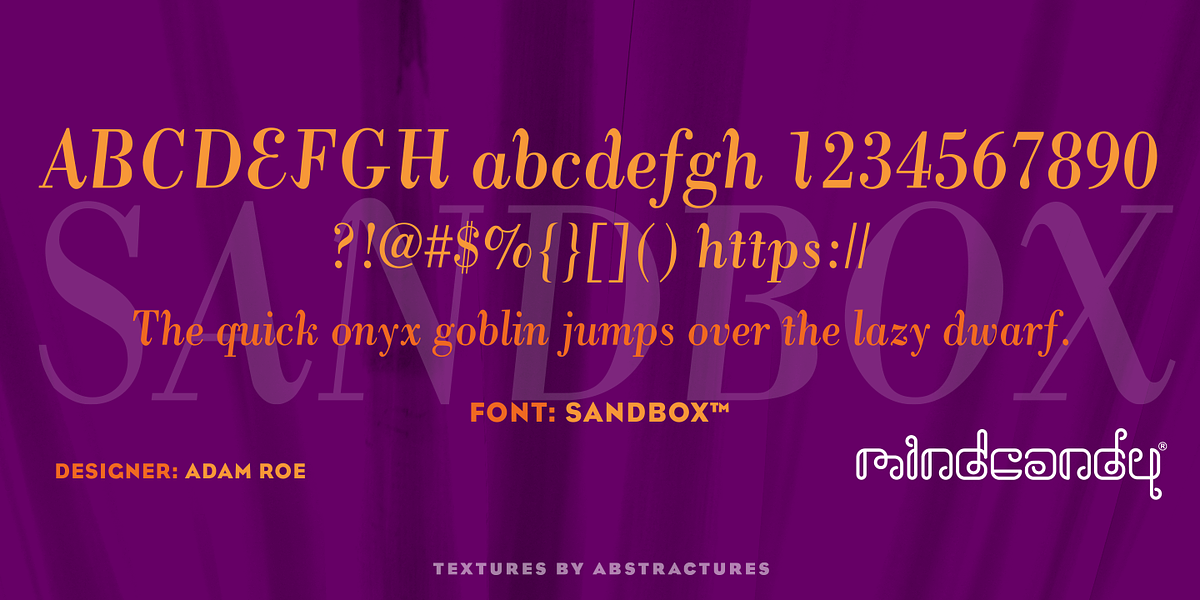
Sandbox™
This serif typeface features distinctive ball terminals, giving it a refined and elegant appearance. Its high contrast makes it suitable for use in headlines and display text where readability is crucial. Designed by Adam Roe, this font exudes classic charm and sophistication.